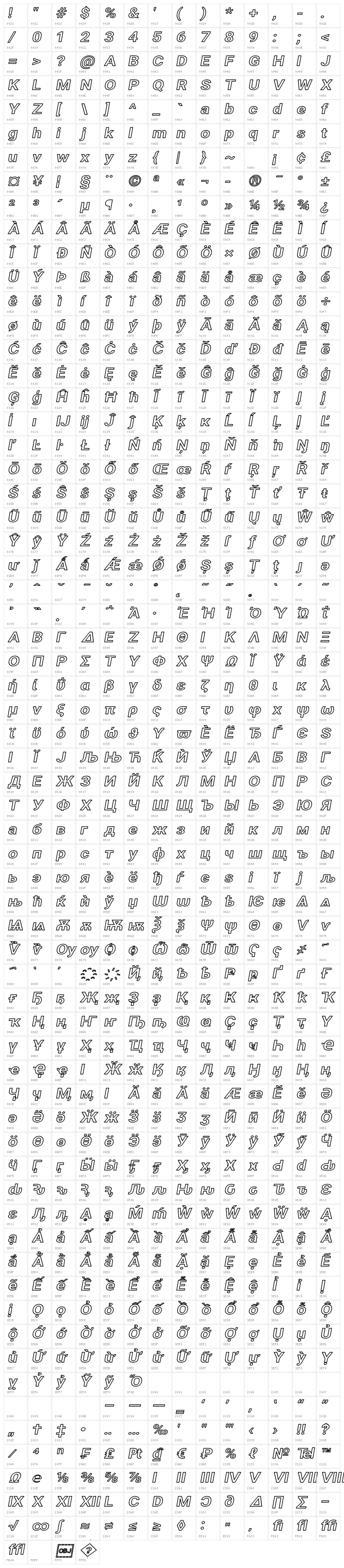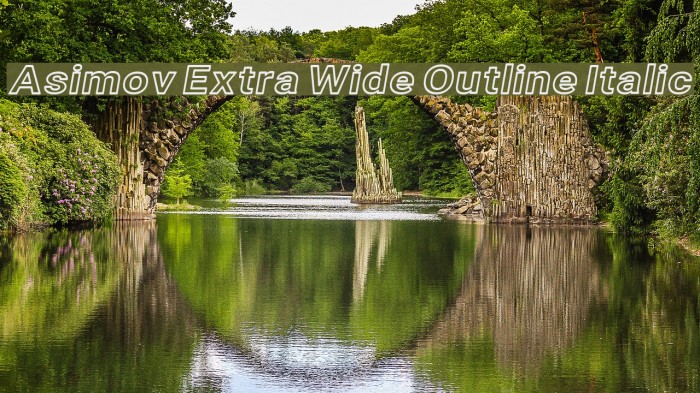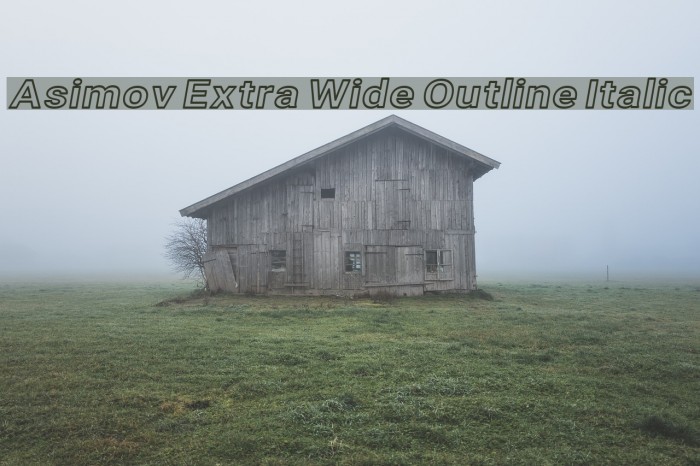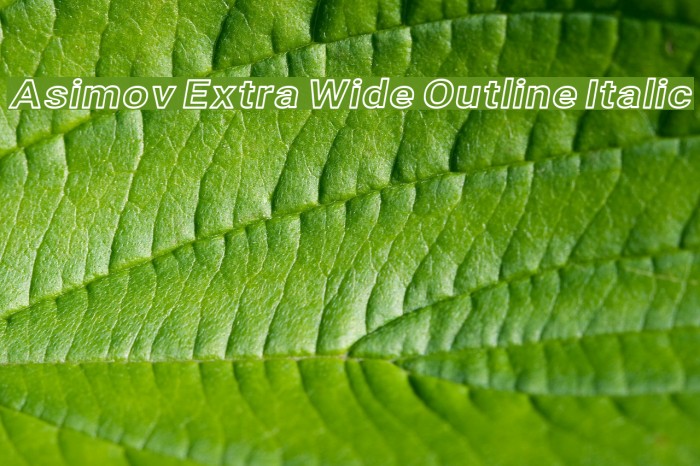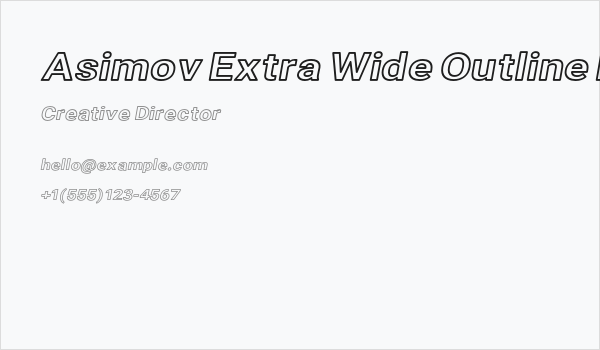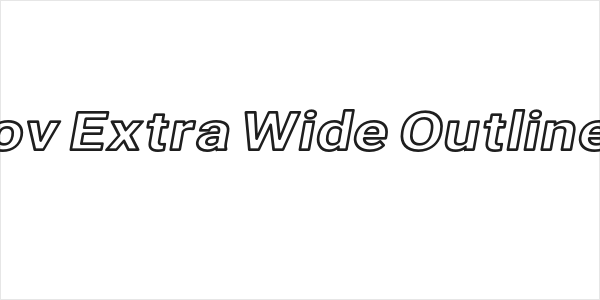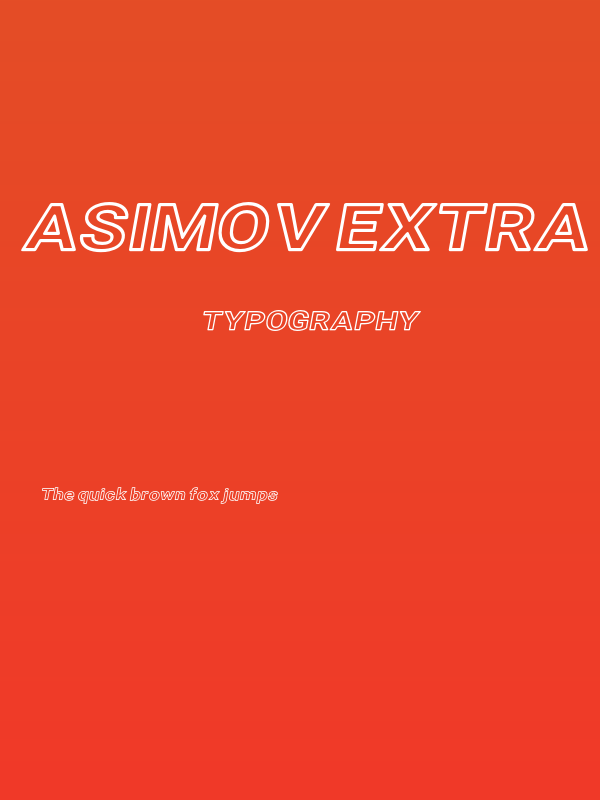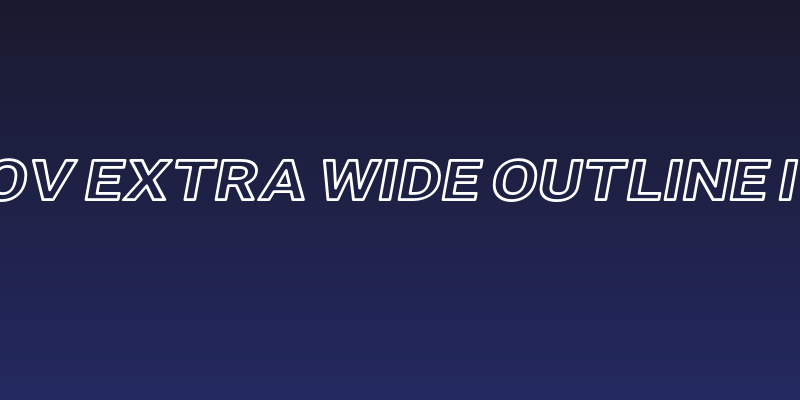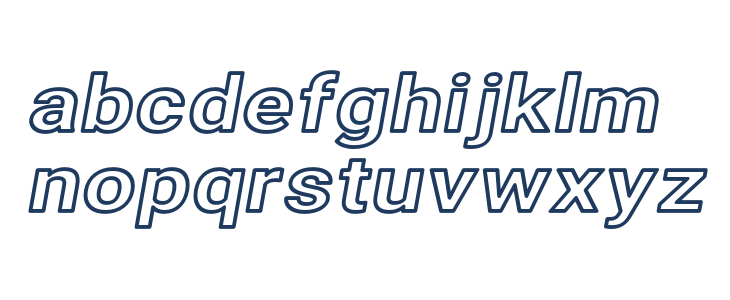
Asimov Extra Wide Outline Italic Font
Asimov Extra Wide Outline Italic Description
This font features an extra-wide outline style with a distinct italic slant, giving it a dynamic and modern appearance. The characters are bold and spacious, with a clear emphasis on geometric shapes and clean lines. The uppercase and lowercase letters maintain a consistent width, contributing to a uniform look. The numerals and special characters are designed to match the overall aesthetic, making them easily readable. This font's outline design allows for creative layering and color usage, enhancing its versatility in various design projects.
| Proposed Projects | Ideal for headlines, posters, branding, and any project requiring a modern, eye-catching typeface. |